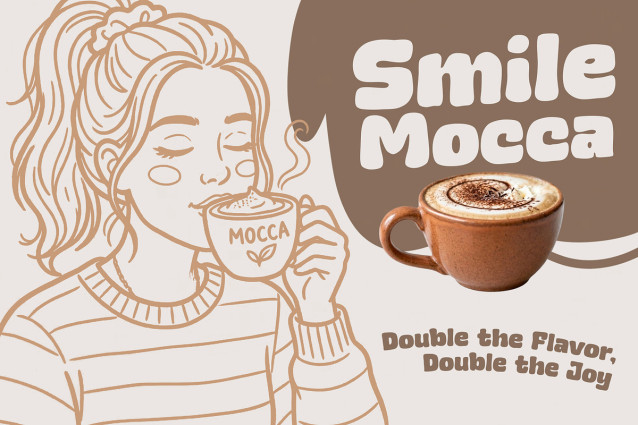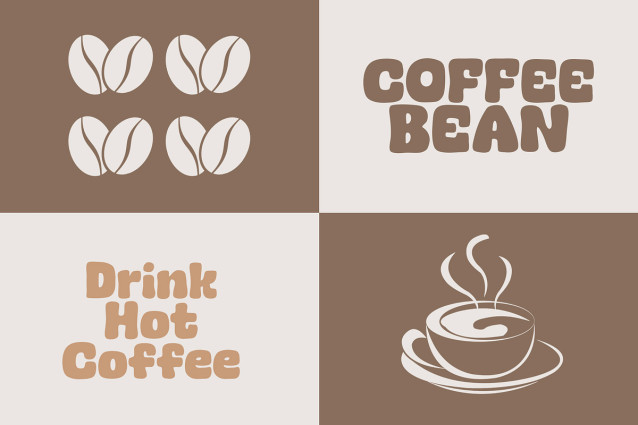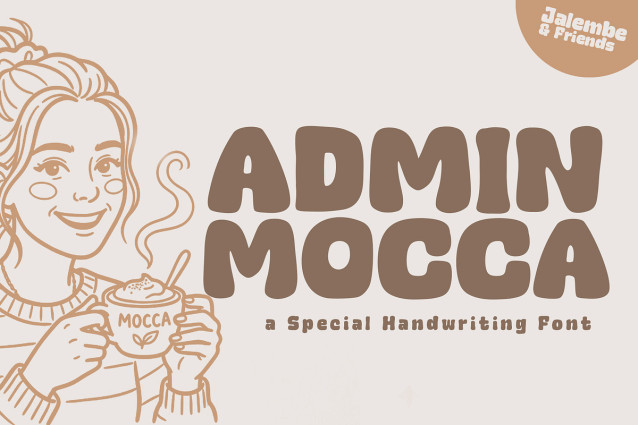
Admin Mocca Font
Admin Mocca Font a fun display typeface with cheerful theme for your fun project. Simple Create font suitable for logo, branding, greeting card, poster and any design that you create.